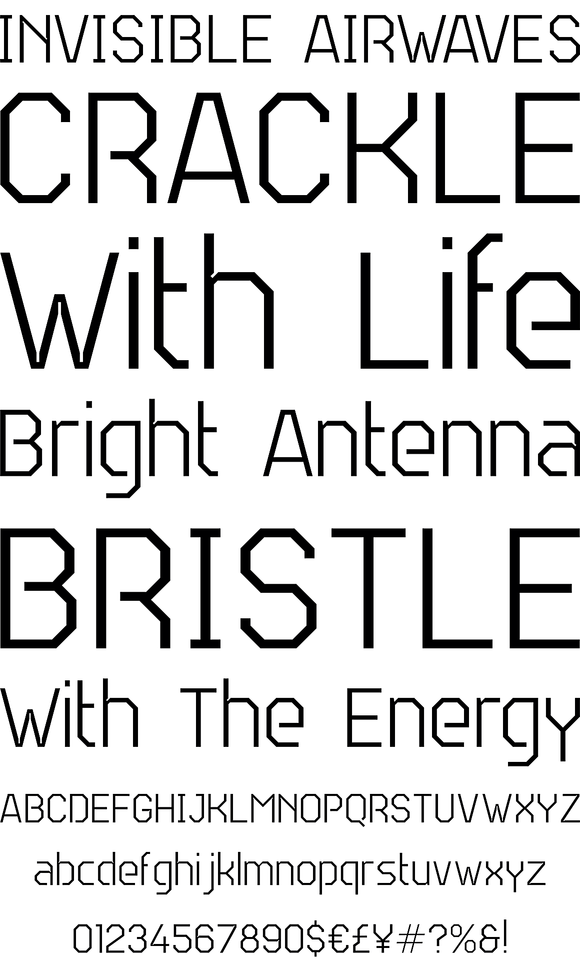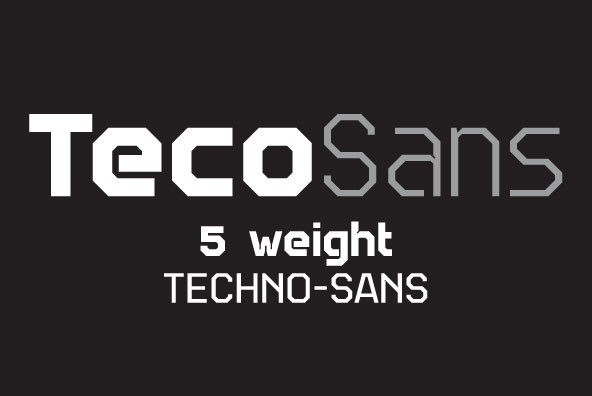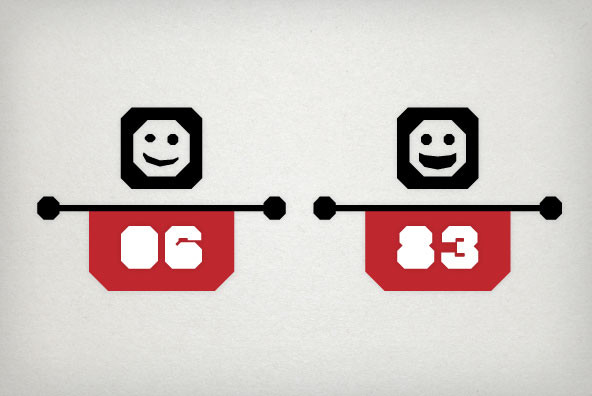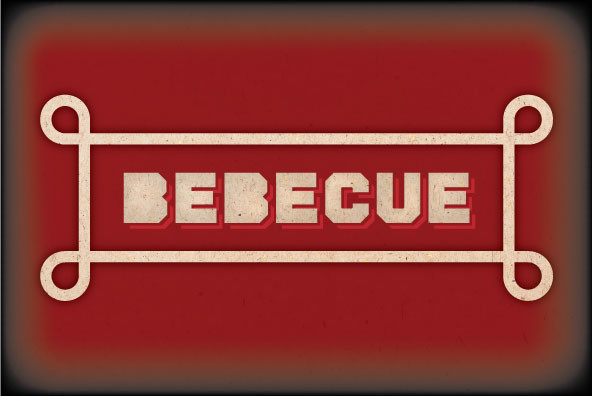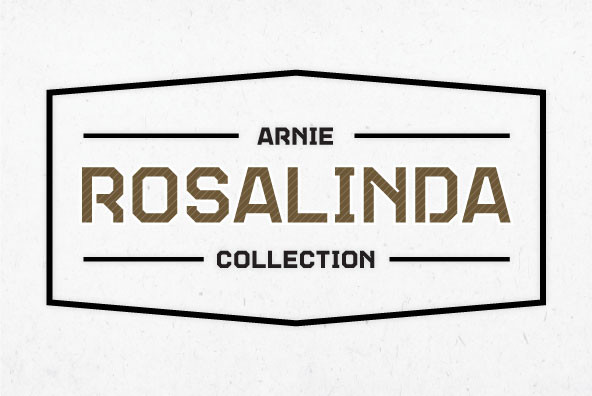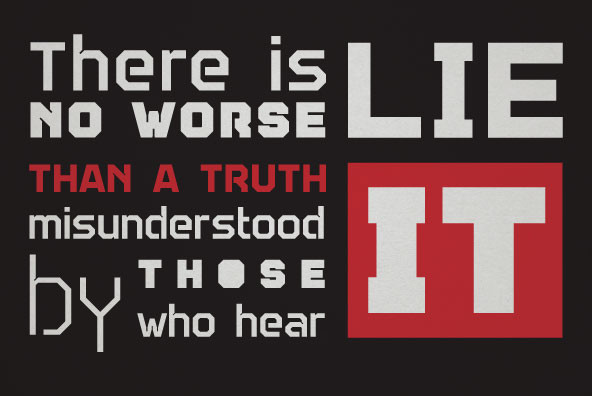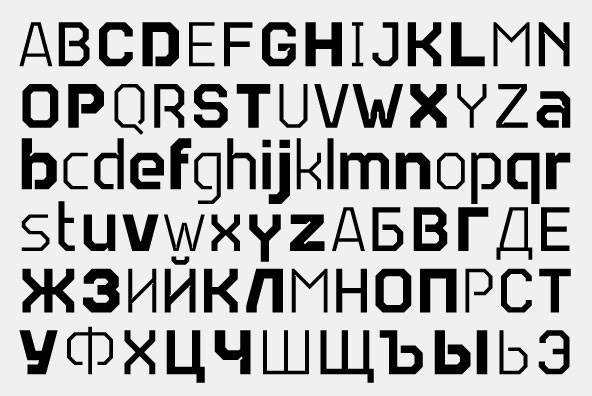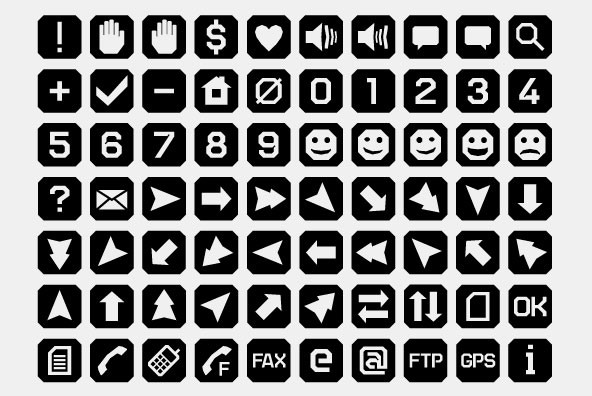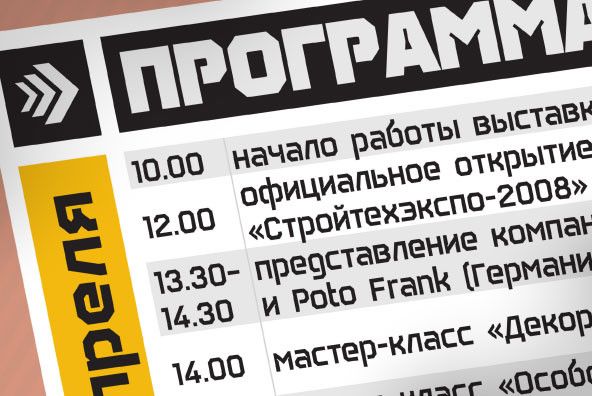
TecoSans
Foundry: Gaslight
Another techno-sans with interesting compensators, inspirit by Alexander Rodchenko works. Clean, strong… ultra here and there. Plus free symbol typeface for supporting in various situation.